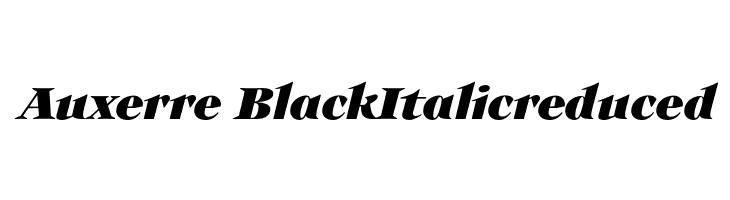
A sophisticated, slanted script font with flowing, interconnected letters and elegant flourishes.
An elegant script font with flowing, interconnected letters and high contrast strokes.
A lively, expressive handwritten font with flowing, interconnected letterforms.
A cursive, handwritten font with elegant, flowing strokes.
A bold, modern font with thick, uniform strokes and tight spacing.
A playful and elegant script font with flowing, interconnected letters.
A modern, narrow font with elongated characters and a clean, minimalistic style.
An elegant, flowing script font with graceful curves and fluid strokes.
A graceful and elegant script font with flowing, cursive lines.
An elegant, slanted calligraphy font with graceful lines and artistic flourishes.
A graceful calligraphy font with flowing, interconnected strokes and elegant flourishes.
An elegant script font with flowing, interconnected letters and ornate flourishes.
A dynamic, cursive script font with flowing, expressive characters.
A dynamic, cursive-like font with flowing strokes and elegant design.
An elegant, flowing script font with ornate uppercase and fluid lowercase letters.
An elegant, flowing script font with graceful curves and fluid strokes.
A graceful and flowing script font with elegant curves and loops.
A slanted, cursive script font with elegant, flowing characters.
An elegant script font with flowing lines and high contrast, perfect for sophisticated designs.
A modern, high-contrast font with sharp, angular serifs and a Gothic-inspired style.
A playful, handwritten font with whimsical curves and uneven strokes.
A modern sans-serif font with clean lines and excellent readability.
A bold, pixelated font with a retro digital aesthetic.
An elegant and flowing script font with graceful curves and fluid strokes.
( Zulkhairi M Saleh - fontbundles.net/zulkhairilettering )
A bold, italic font with dynamic, angular strokes and high contrast.
( Zulkhairi M Saleh - fontbundles.net/zulkhairilettering )
A creative, hand-drawn style font with elongated, artistic letterforms.
( Zulkhairi M Saleh - fontbundles.net/zulkhairilettering )
An elegant script font with flowing, cursive style and graceful loops.
( Zulkhairi M Saleh - fontbundles.net/zulkhairilettering )
A graceful script font with fluid, cursive strokes and elegant character design.
( Zulkhairi M Saleh - fontbundles.net/zulkhairilettering )
A delicate, elegant handwritten font with thin, flowing lines and graceful curves.
( Zulkhairi M Saleh - fontbundles.net/zulkhairilettering )
A modern-vintage serif font with arrow-like serifs and artistic flair.
( Zulkhairi M Saleh - fontbundles.net/zulkhairilettering )
A refined, cursive script font with elegant, flowing lines and an italicized style.
A modern, elegant handwritten font with flowing, cursive letterforms.
A modern, elegant script font with flowing curves and delicate strokes.
A bold, cursive font with a playful and energetic style.
A whimsical decorative font with monster-themed glyphs, perfect for playful designs.